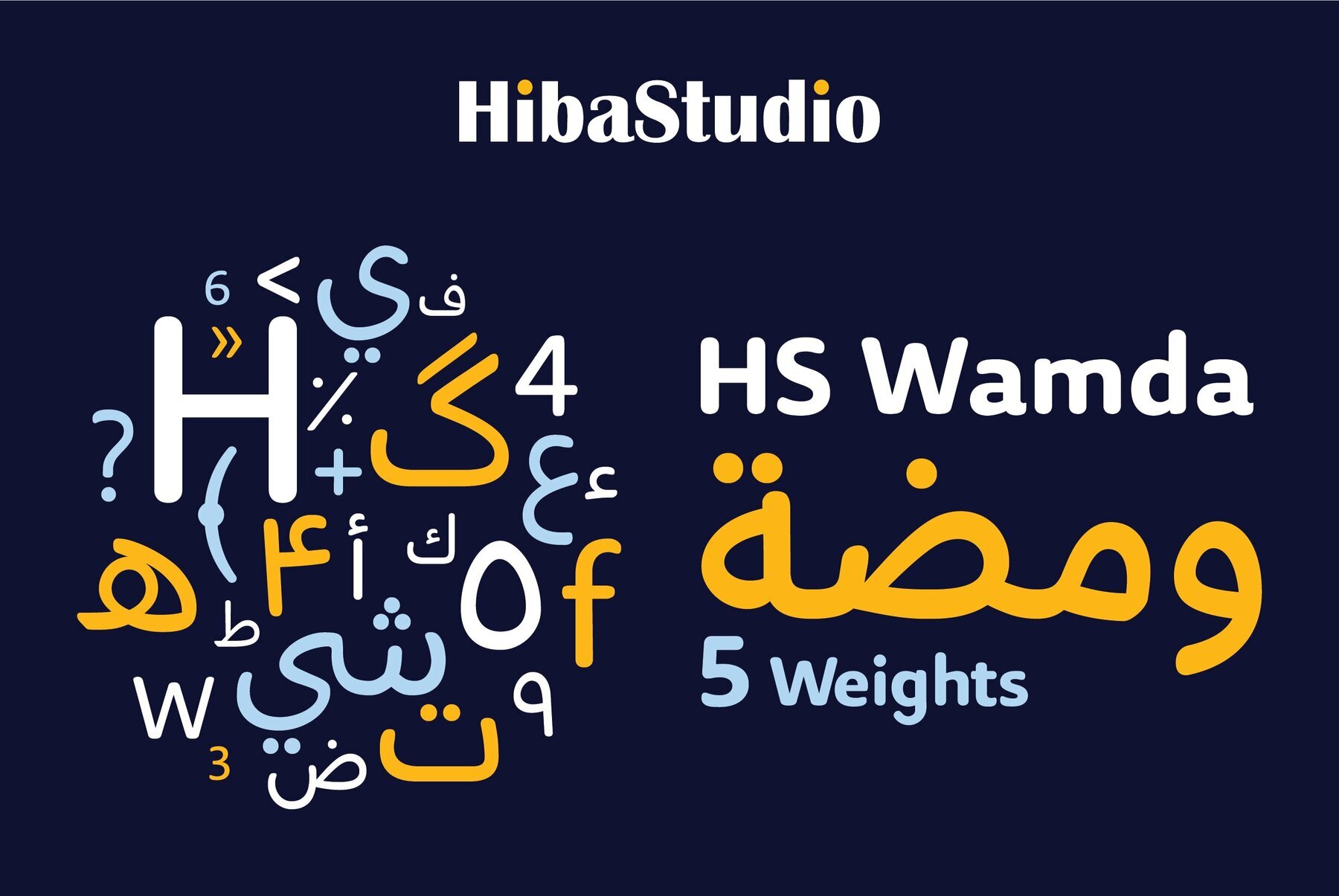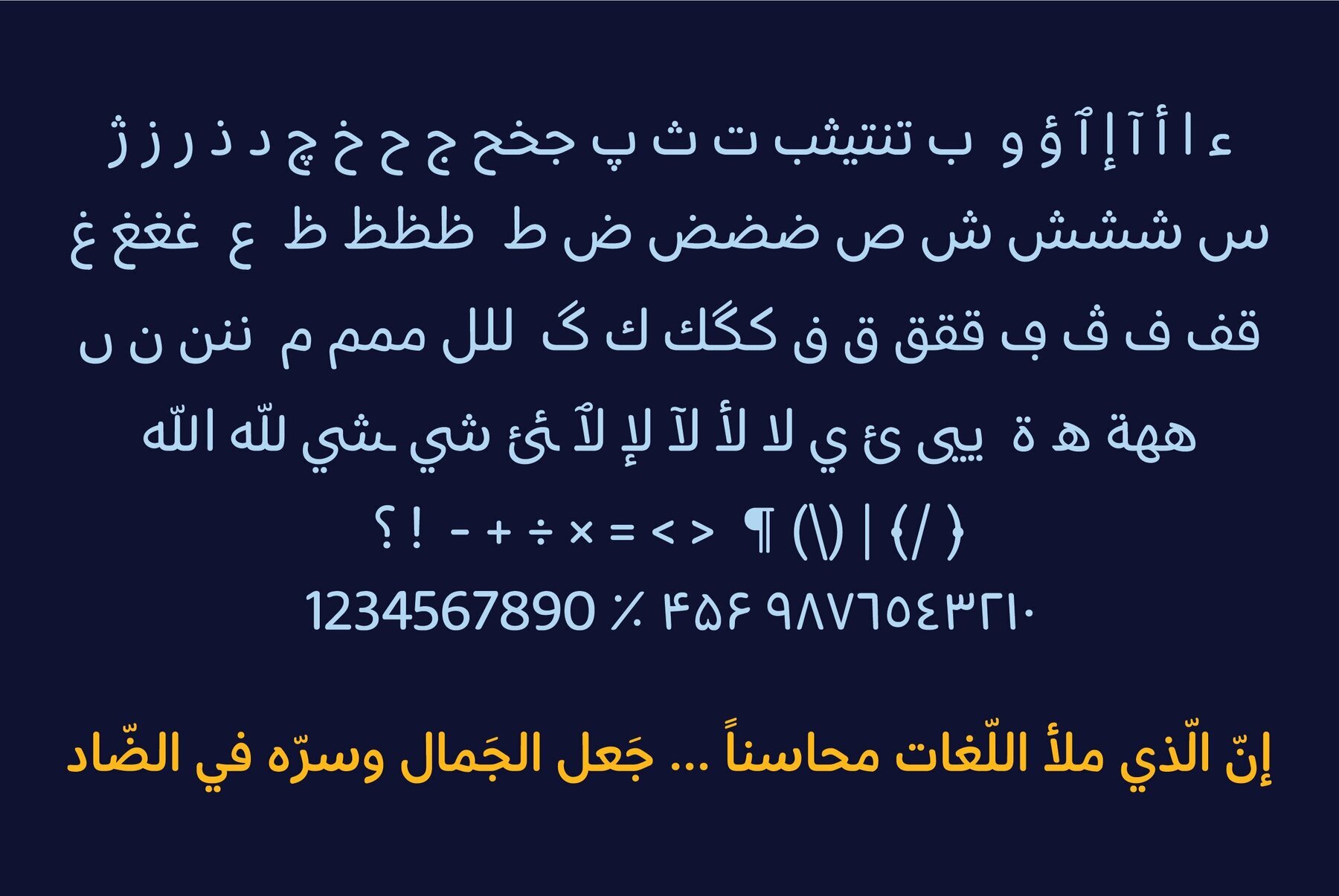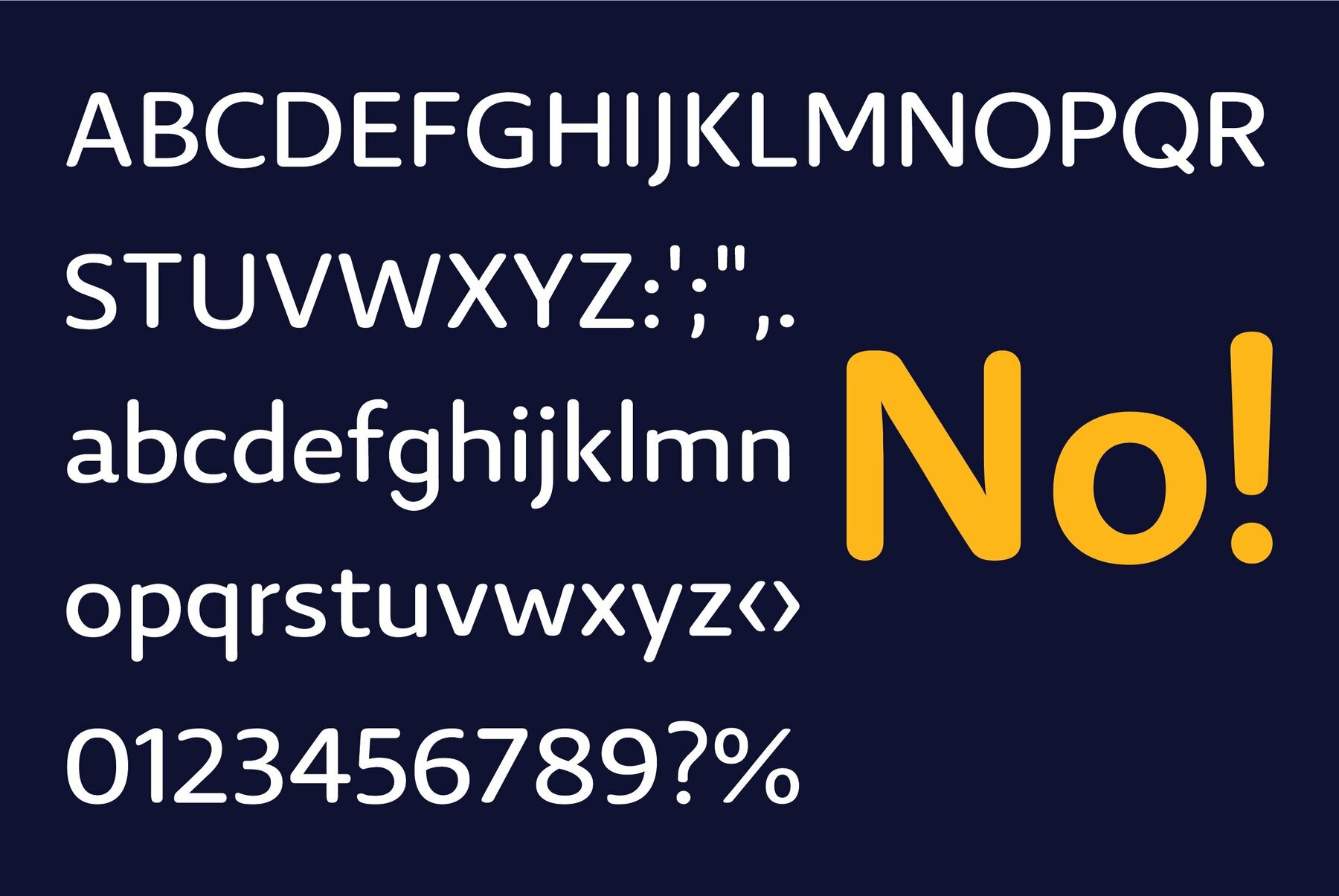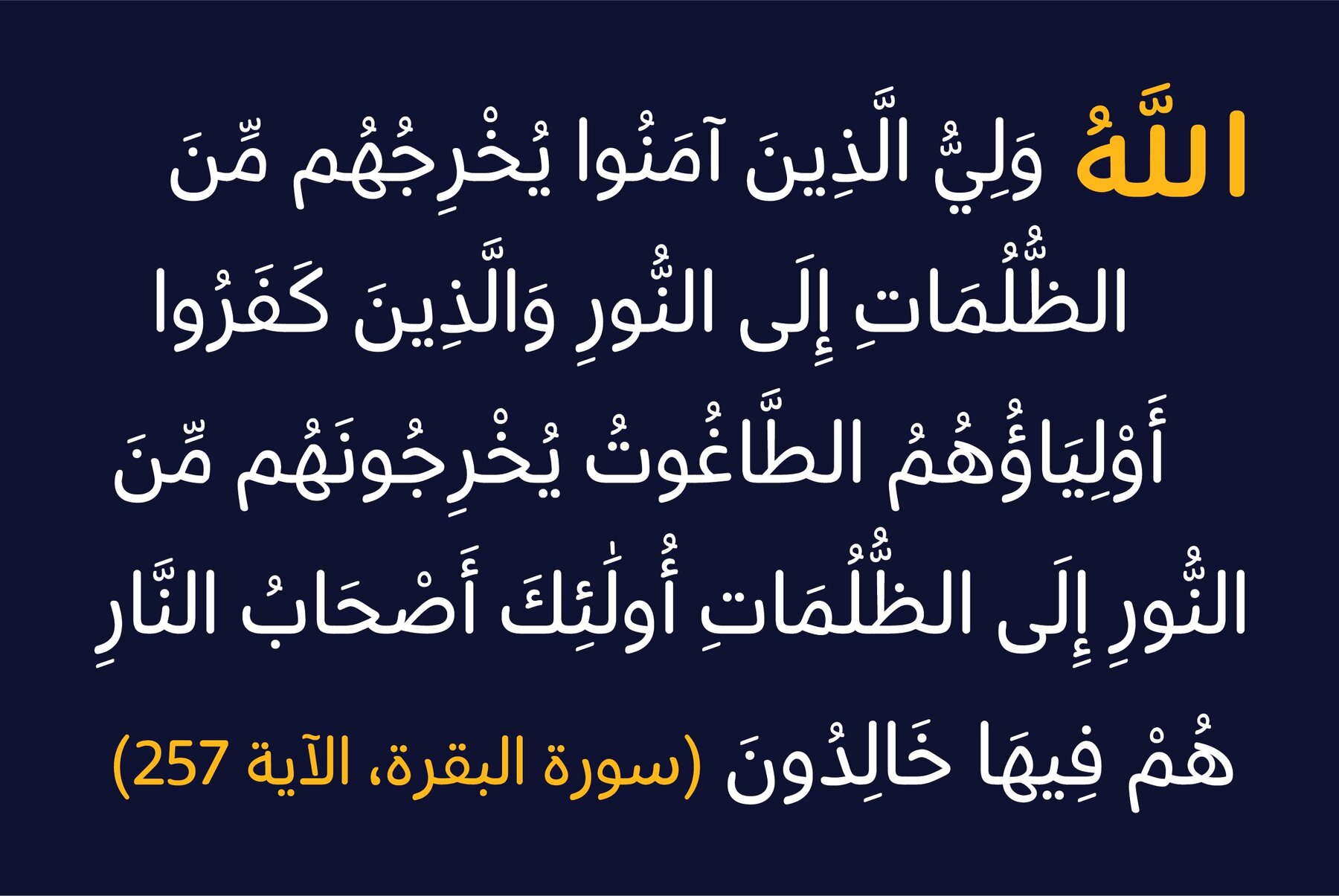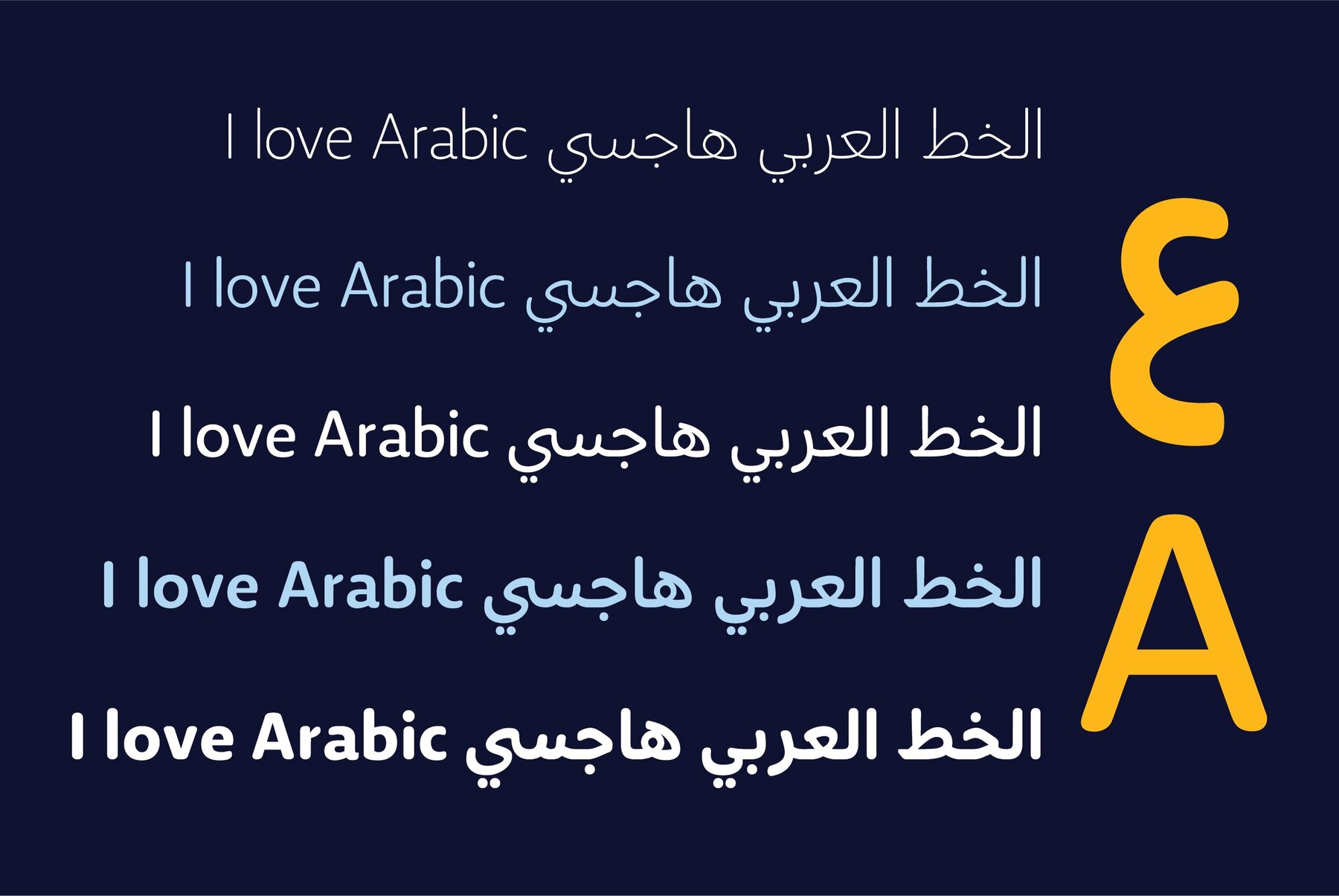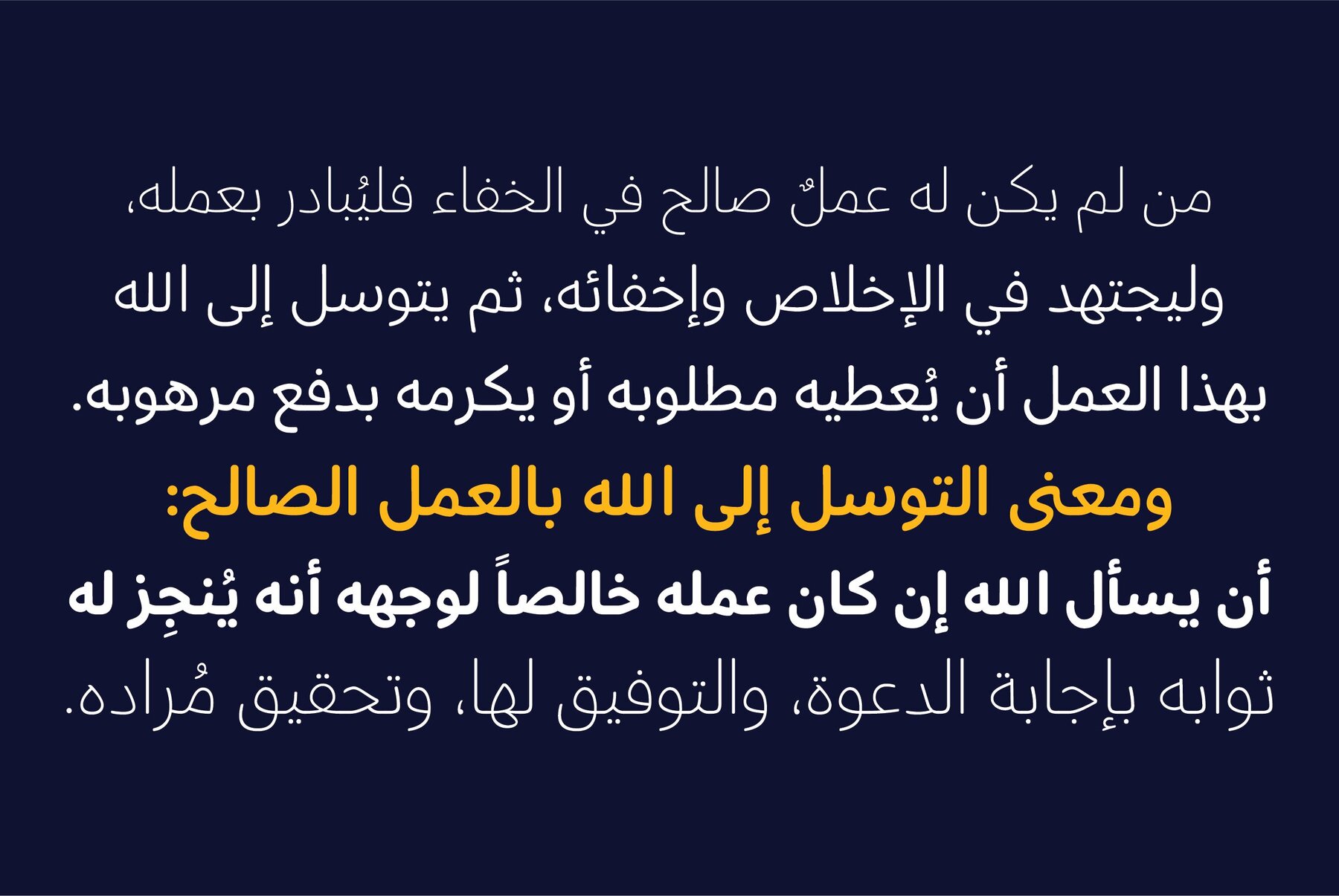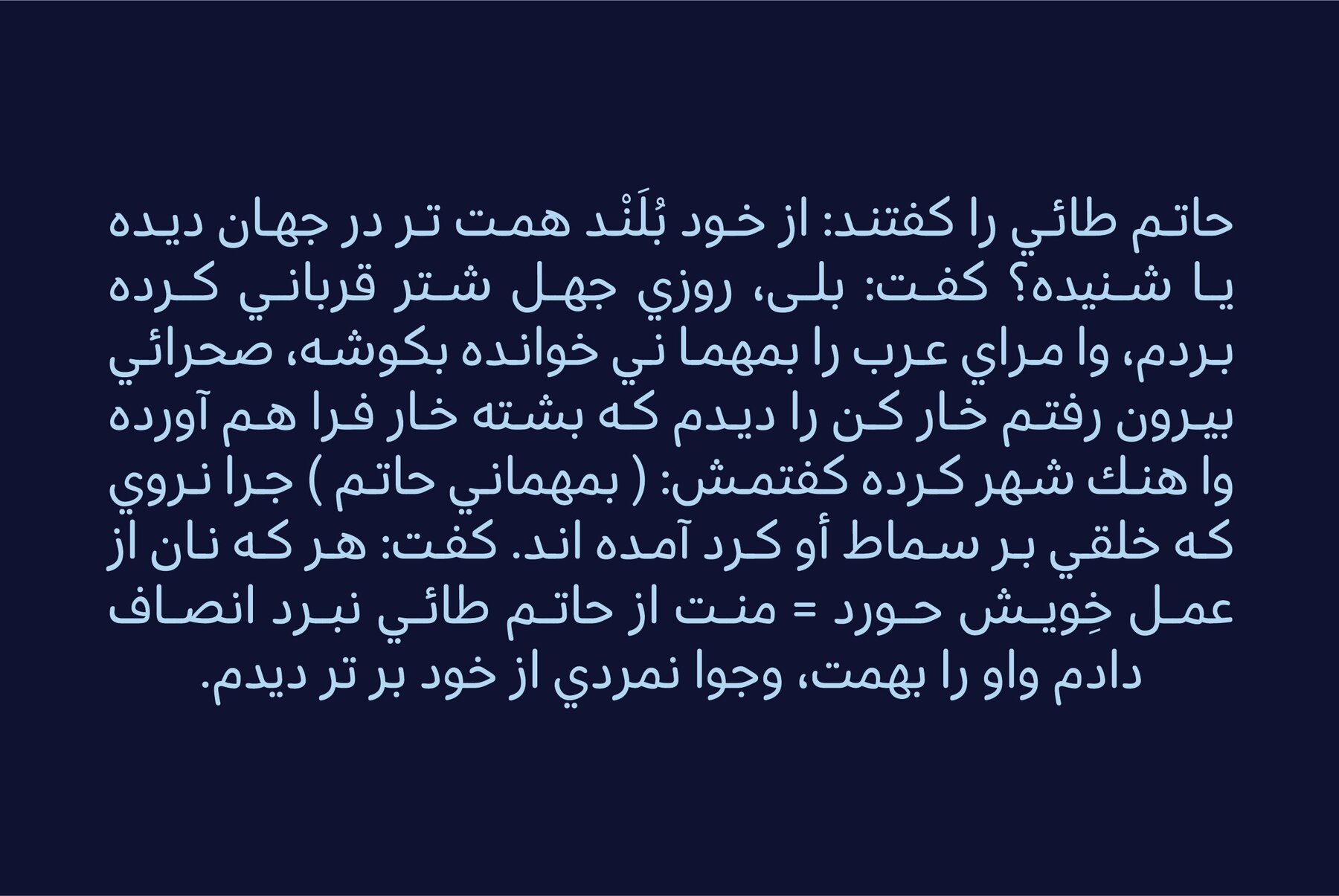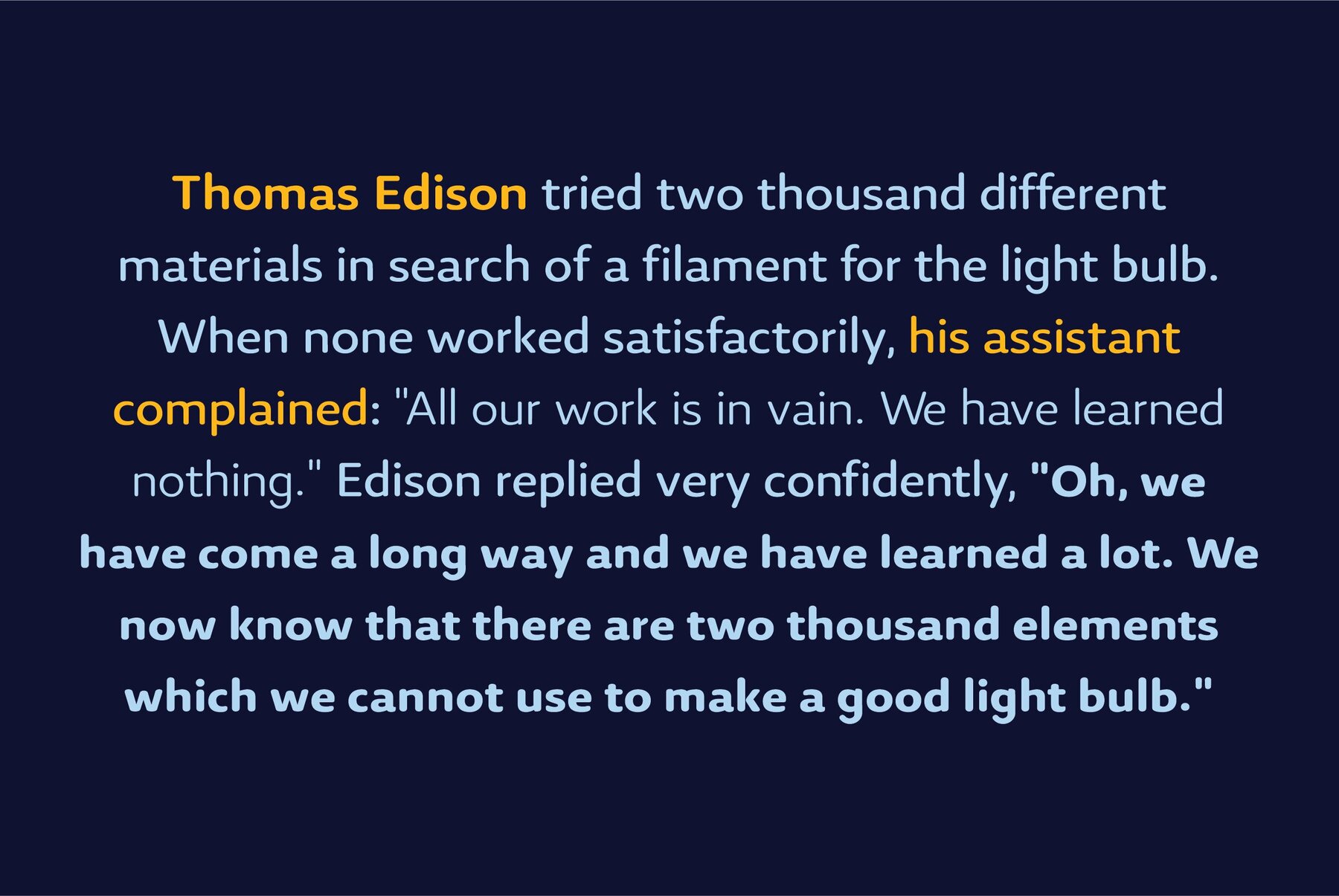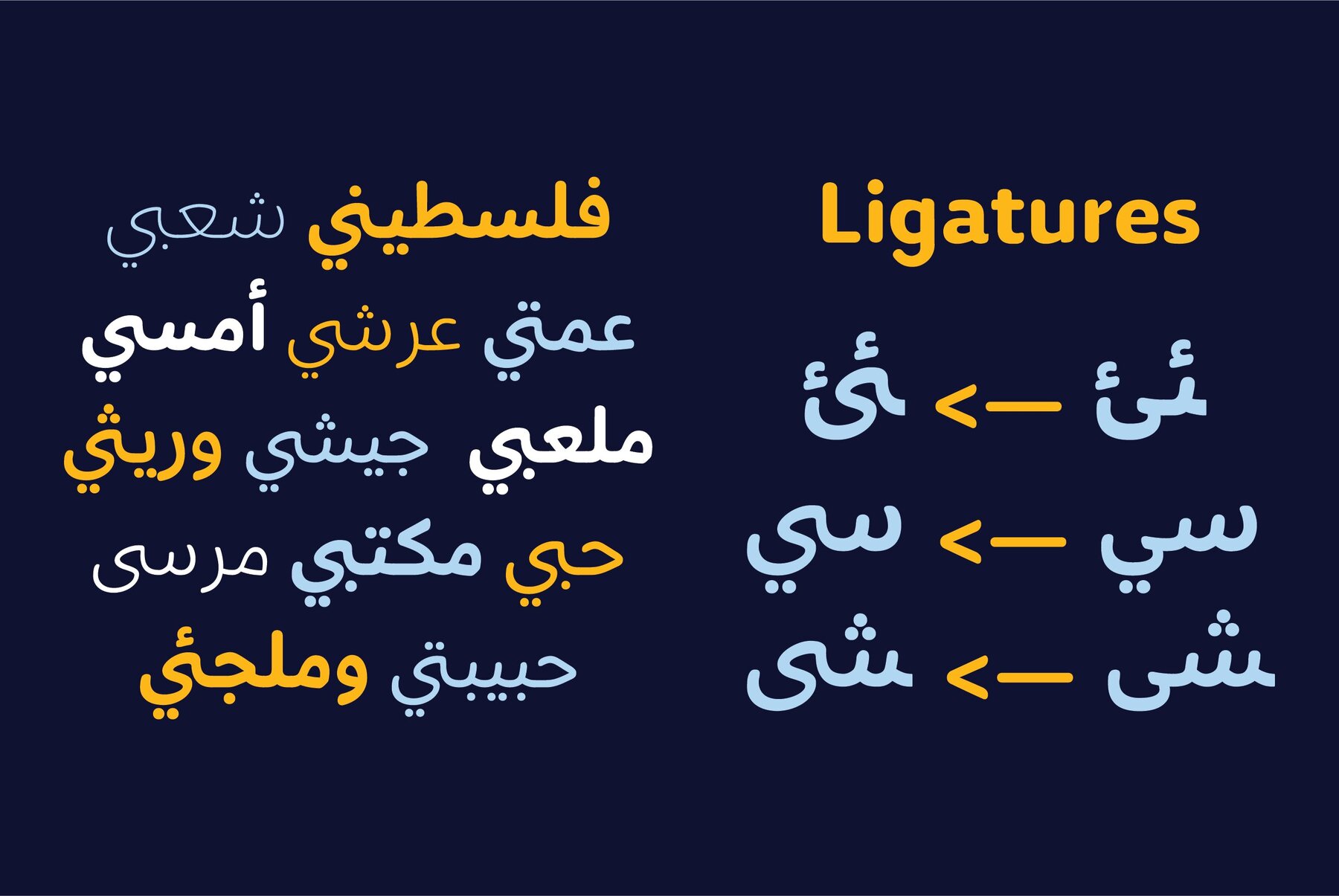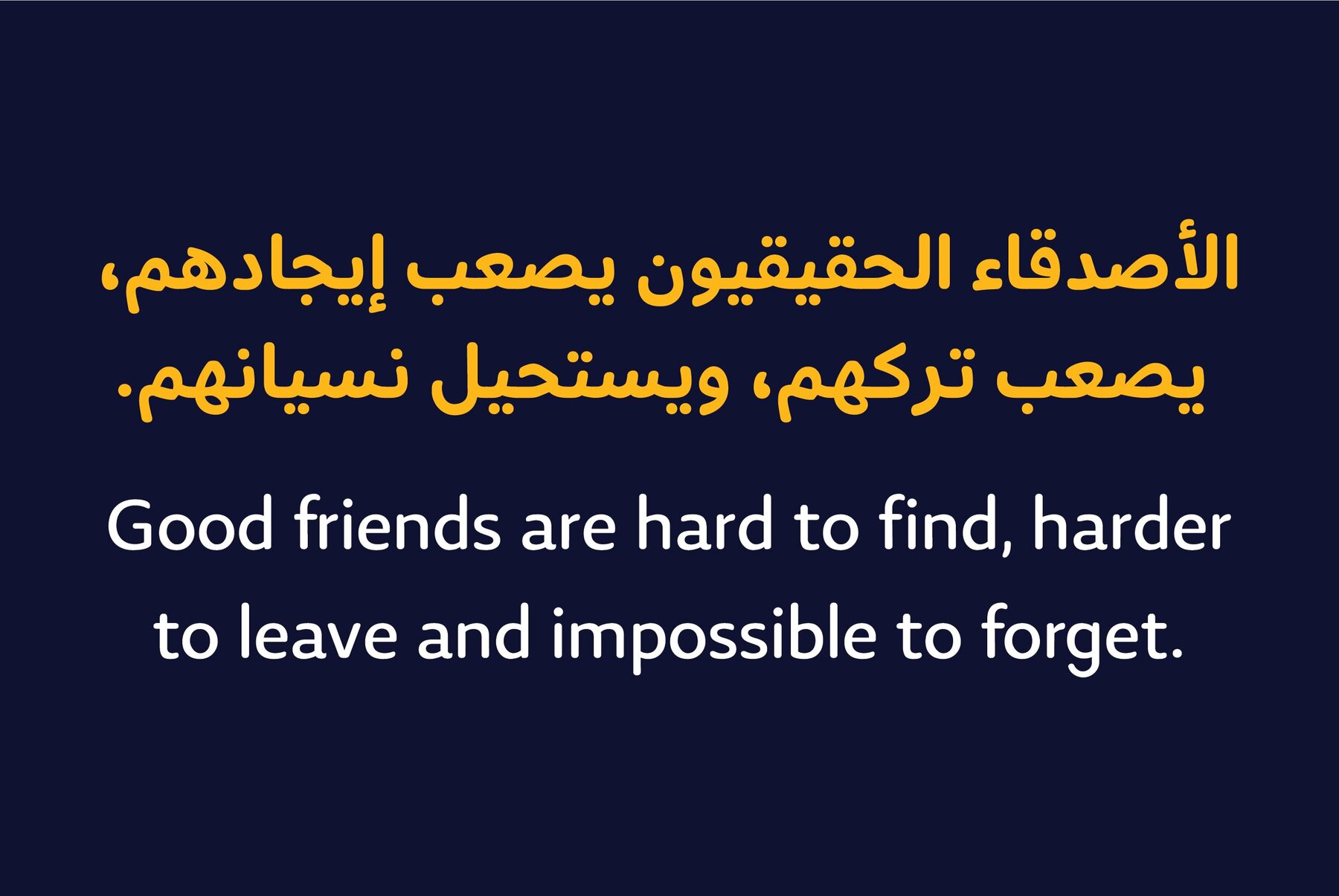
HS Wamda Font
HS Wamda blends the sophistication of traditional Naskh calligraphy with a modern, adaptable design. Its clean sans serif structure and gently contoured curves create a balanced, smooth rhythm that remains clear and inviting. Designed to support Arabic, Persian, and Latin scripts, HS Wamda offers strong visual harmony and readability at any size, making it well-suited for both print and digital applications. Available in five carefully tuned weights—Thin, Light, Regular, Medium, and Bold—HS Wamda is ideal for a range of creative projects. Its gentle warmth and refined simplicity make it a dependable choice for branding, editorial layouts, children's books, and contemporary design work. HS Wamda is a compelling option for designers seeking both elegance and clarity in multilingual typography.HS Wamda: Modern Naskh Calligraphy Meets Versatility